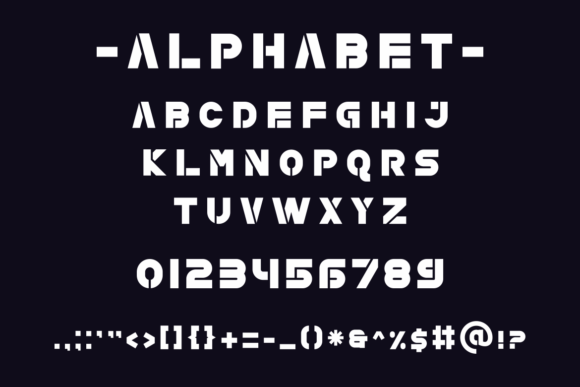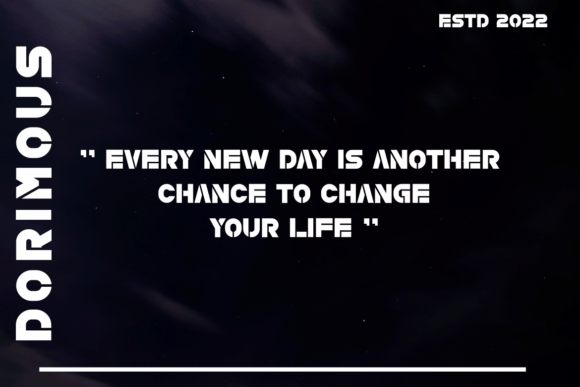
Introduction to Dorimous Font
Dorimous is a futuristic and trendy font.
No matter the topic, this font will be an excellent choice for your projects, as it has the potential to enhance any deisgn .
Key Features of Dorimous Font
Why Choose Dorimous Font?
Dorimous Font offers exceptional quality and versatility, making it a valuable addition to your design toolkit. Whether you’re creating for personal projects or commercial use, Dorimous Font delivers professional results.